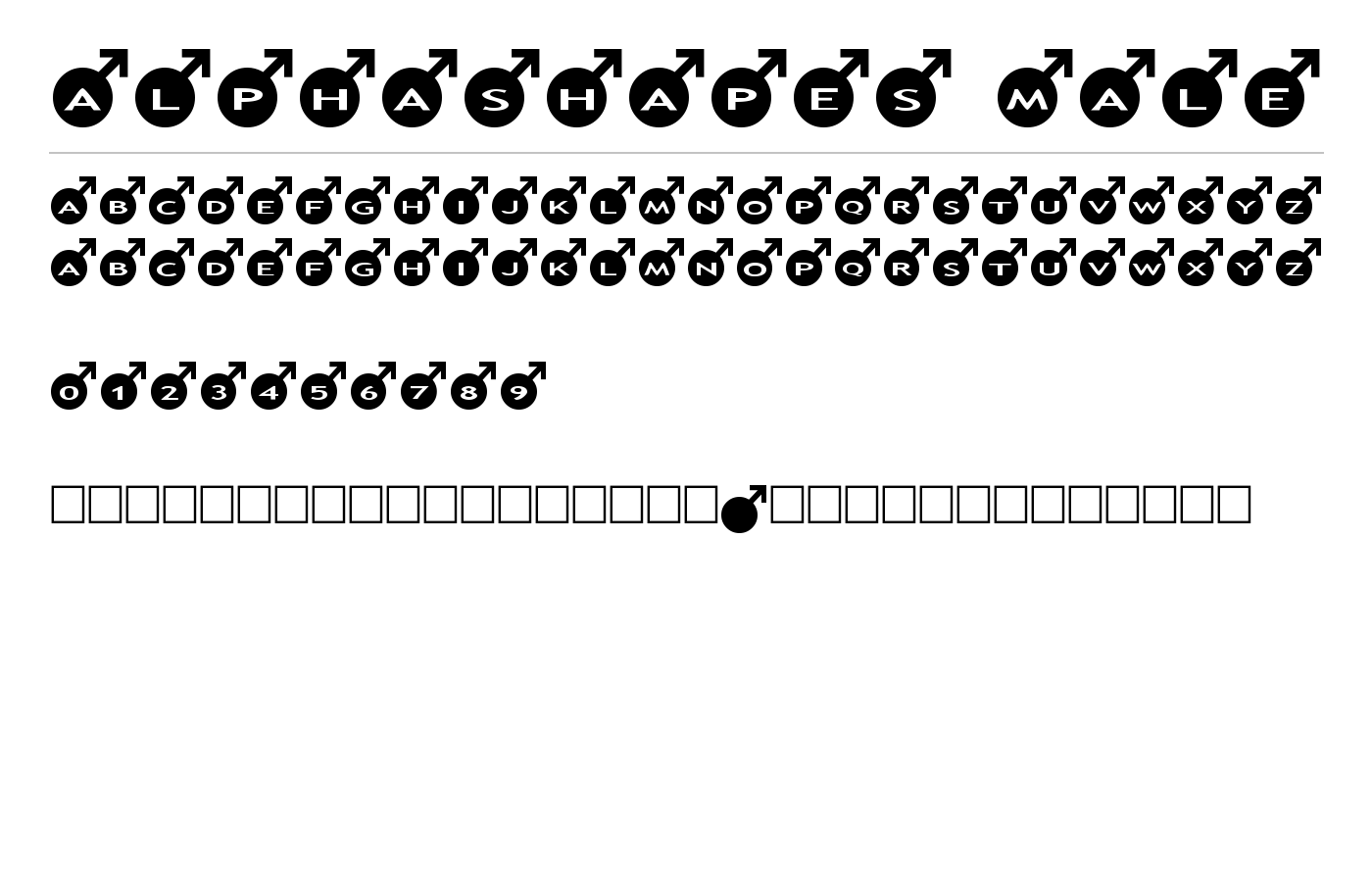
AlphaShapes Male is a bold, geometric sans serif font characterized by uppercase letters enclosed in solid black circles topped with the male gender symbol. Its strong, modern design with uniform stroke widths and tight spacing creates a distinctive, emblematic look that suits branding, logos, and headlines where a striking and symbolic impact is desired. This font works well for projects aiming to convey masculinity, strength, and contemporary style in a visually bold way.
AlphaShapes male Font
About AlphaShapes male Font